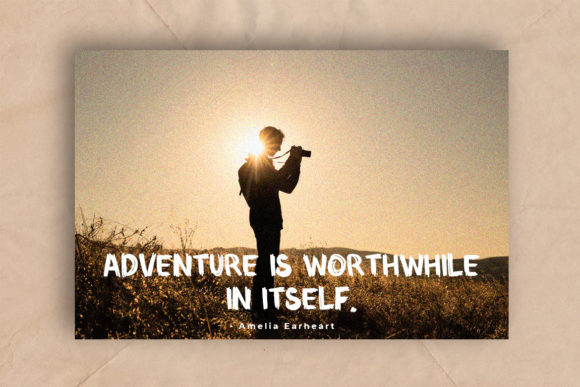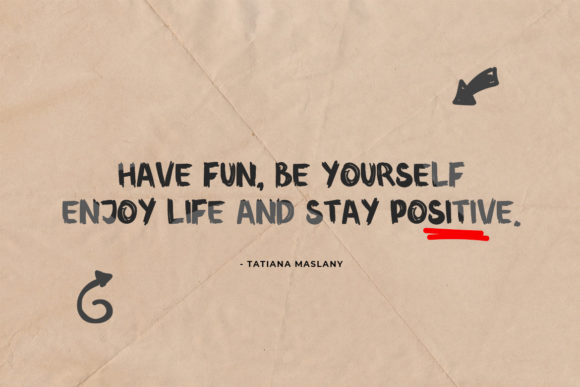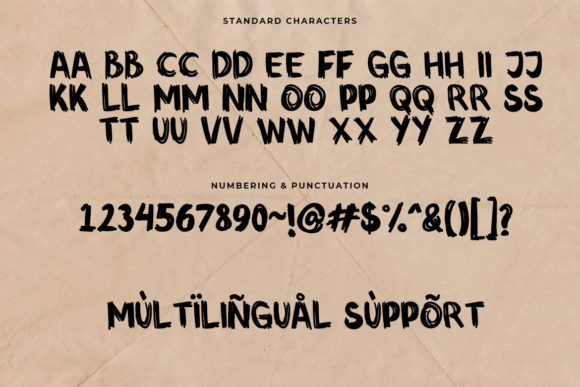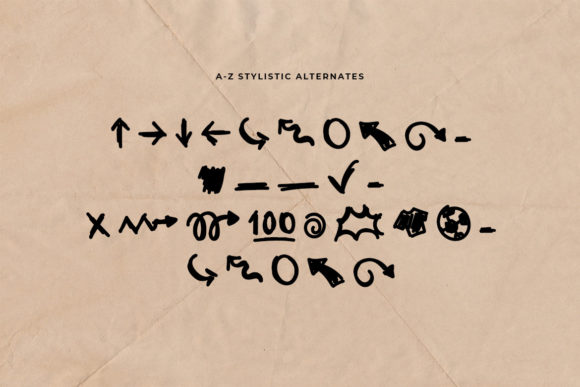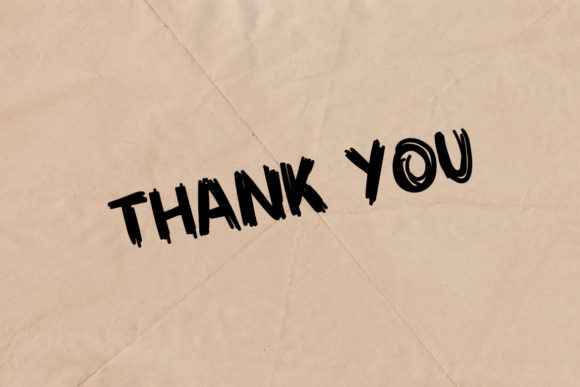
Introduction to Helodale Font
Helodale is a cute and simple lettered handwritten font that can be used for all chalkboard quotes or teaching material.
Its authentic look will add a personal and realistic feel to your designs .
Key Features of Helodale Font